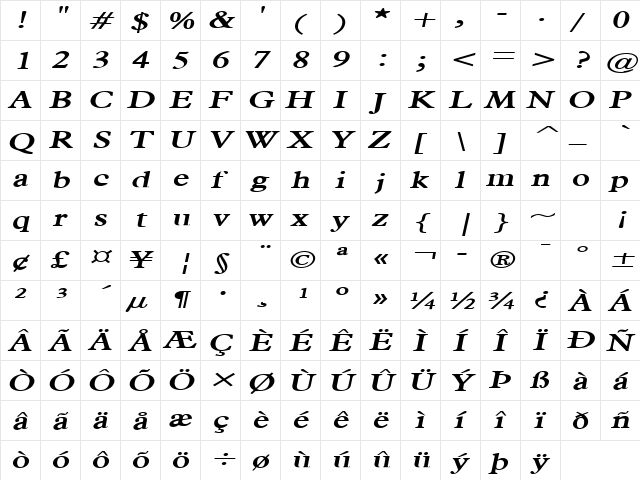
Nadine-Extended Bold Italic
Design Context for Nadine-Extended Typeface
Nadine-Extended offers clean, dependable letterforms without strong stylistic allegiance, making it a practical choice for designers who need flexibility. The slanted form adds forward momentum and visual energy. The heavy weight commands attention and anchors typographic hierarchies.
Pro Tip: Use Nadine-Extended for emphasis, pull quotes, and subheadings where its slanted energy can add rhythm to the layout.